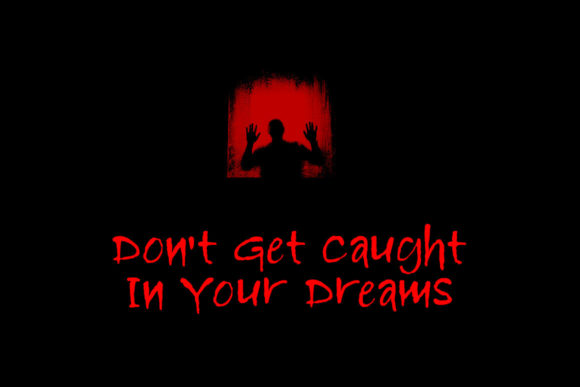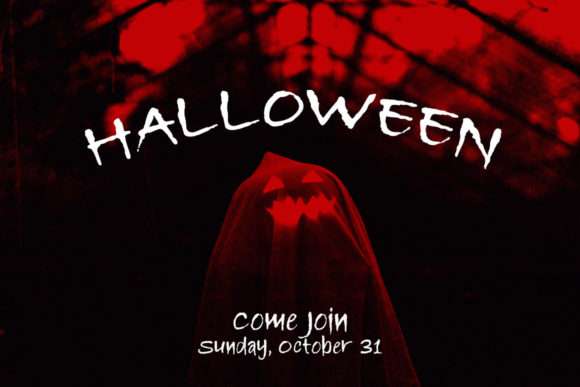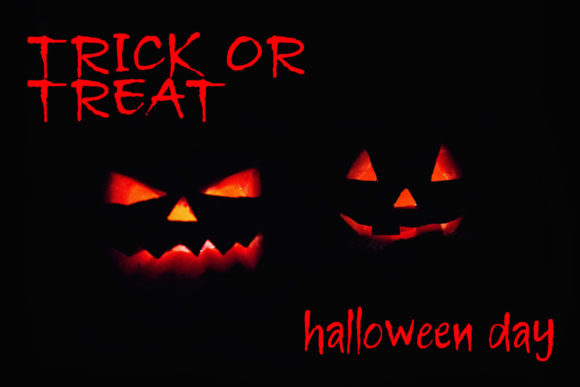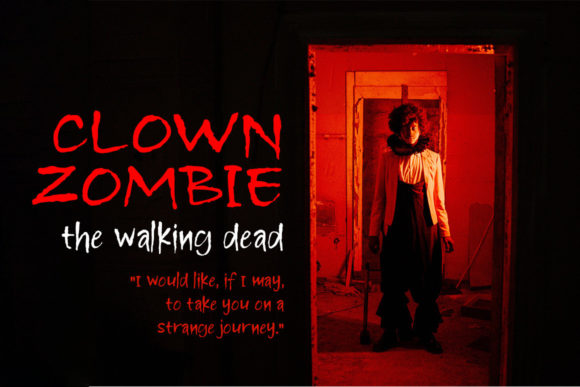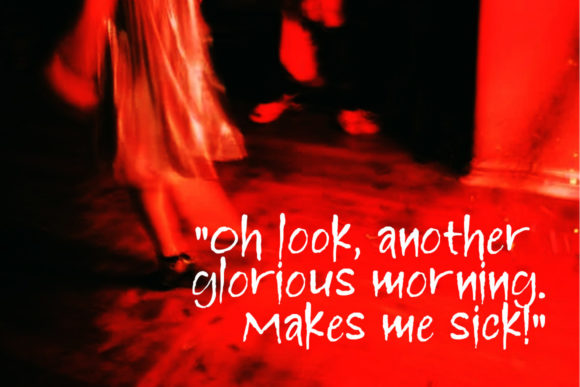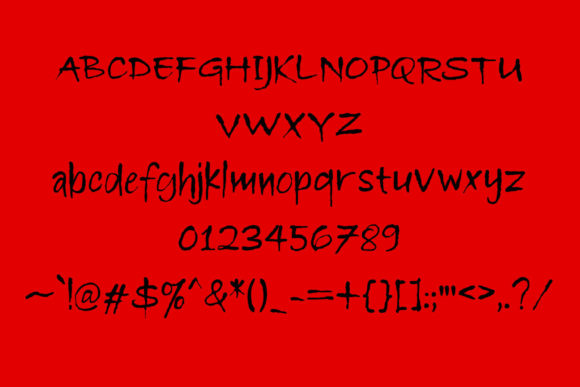
Introduction to Red Smoke Font
Do you ever have those moments when you’re working on a creative project and you just can’t seem to find the right font to bring it all together? You scroll through font collections, browse design resources, and download a few free fonts, but nothing seems to capture the essence of your design. For me, that moment came when I was working on a spooky Halloween design and I stumbled upon the Red Smoke Font. It was love at first sight – the font’s eerie, high-quality design and transparent background made it the perfect addition to my project.
As a designer, I can attest to the value of having a versatile and high-quality font like Red Smoke Font in your design arsenal. Not only does it add a touch of sophistication and creativity to your work, but it also helps to elevate your designs and make them stand out from the crowd.
Whether you’re working on a Halloween design, a creative project, or just need a unique font to spice up your designs, Red Smoke Font is definitely worth checking out.
Key Features of Red Smoke Font
- High-quality design resource with a unique, smoky effect, perfect for creative projects.
- Features a transparent background, allowing for seamless integration with any design.
- Unique characteristics include a dynamic, smoke-like texture and a bold, eye-catching appearance.
- Ideal for use in graphic design, digital art, and other creative projects that require a distinctive, high-quality font.
- Can be easily customized and manipulated to fit the specific needs of your design project.
Honest Review: Red Smoke Font
As a designer, I’m always on the lookout for unique and high-quality design resources to enhance my creative projects. Recently, I had the chance to work with the Red Smoke Font, and I’m excited to share my honest review with you.
- ✨ High-quality design: The Red Smoke Font is beautifully crafted, with intricate details and a unique style that sets it apart from other fonts.
- ✨ Transparent background: The font has a transparent background, allowing for easy layering and manipulation in design projects.
- ⚠️ Limited character set: The Red Smoke Font has a relatively small character set, which may limit its use in certain design projects.
- ⚠️ Not suitable for body text: Due to its unique style and limited character set, the Red Smoke Font is best used as a decorative element or for headings.
Overall, I was impressed with the Red Smoke Font’s unique style and high-quality design. While it may have some limitations, it’s a great addition to any designer’s toolkit, particularly for creative projects that require a distinctive look.
How to Use Red Smoke Font
Tips for Getting the Most Out of Red Smoke Font
To get the most out of the Red Smoke Font, experiment with different font sizes, colors, and styles. You can also combine the font with other design elements, such as graphics and images, to create a unique visual effect.
The Red Smoke Font is suitable for a variety of creative projects, including graphic design, digital art, and visual communications. It’s also a great resource for designers looking for a high-quality, free font with a transparent background.